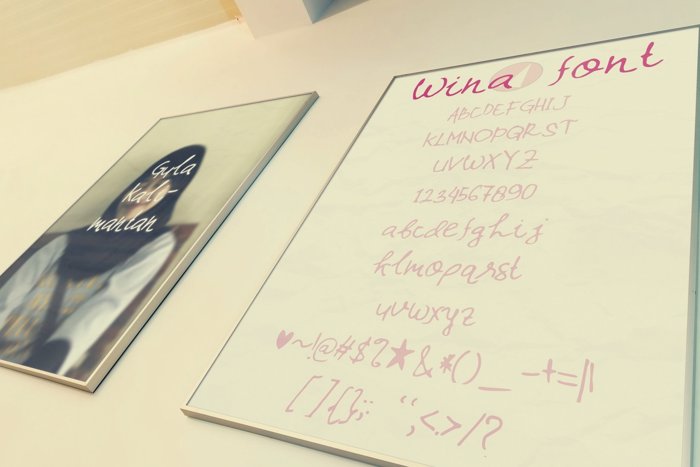
Wina Font
Wina font is a semi cursive font that feature variable x-height and a touch of randomized curve to retain hand-made looks. Actually, this is my friend's handwriting.
Use of proper kerning is very essential!